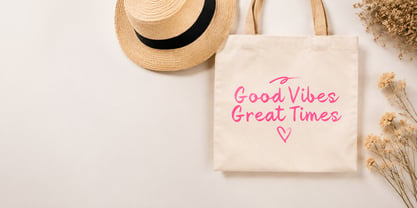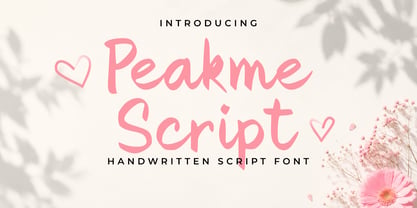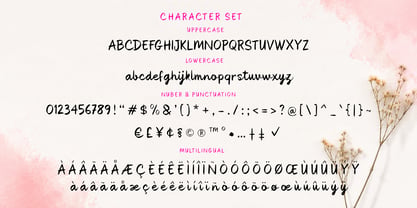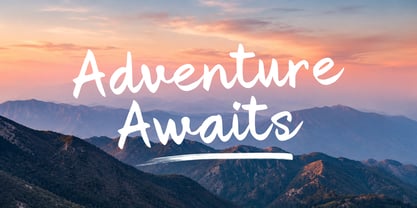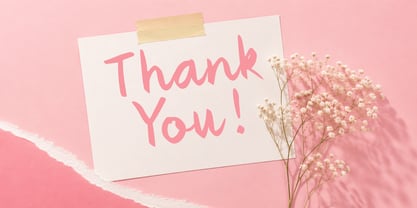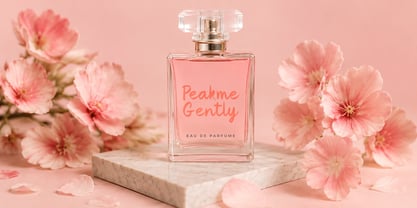
Peakme Script
von Letterytz CalliType
Die Schriftfamilie Peakme Script wurde von Wahyu Eka Prasetya, Dian Angga Marytama entworfen und von Letterytz CalliType veröffentlicht. Peakme Script enthält 2 Stile und Familienpaketoptionen. Mehr über diese Familie
Peak Me Script is a charming handwritten brush script font designed to bring warmth, personality, and authenticity to every creative project. Featuring natural brush strokes, smooth curves, and a playful handwritten feel, this font is perfect for branding, logos, packaging, social media graphics, invitations, quotes, apparel designs, and modern craft projects. Its versatile character makes it ideal for both casual and professional designs, delivering a stylish and eye-catching handwritten aesthetic.
Features:
• Uppercase & Lowercase Characters
• Numerals & Punctuation
• Multilingual Support
• Stylistic Alternates
• Ligatures
• Regular & Oblique Style
Designer: Wahyu Eka Prasetya, Dian Angga Marytama
Foundry: Letterytz CalliType